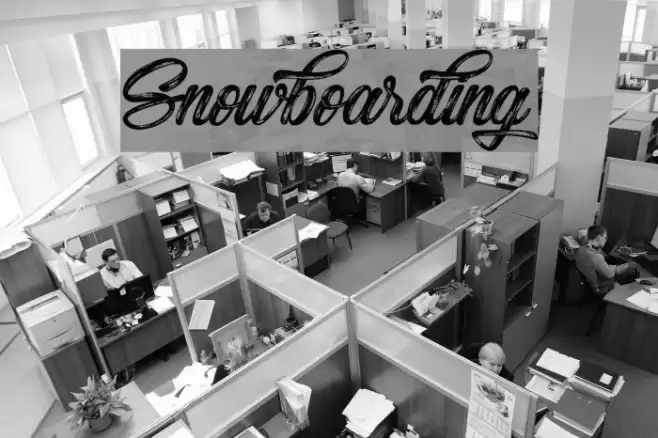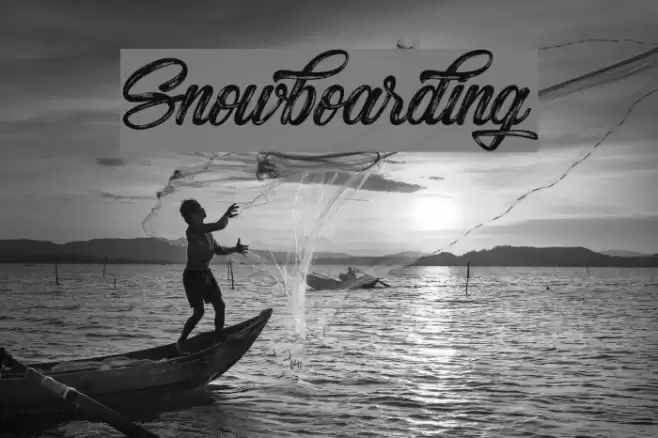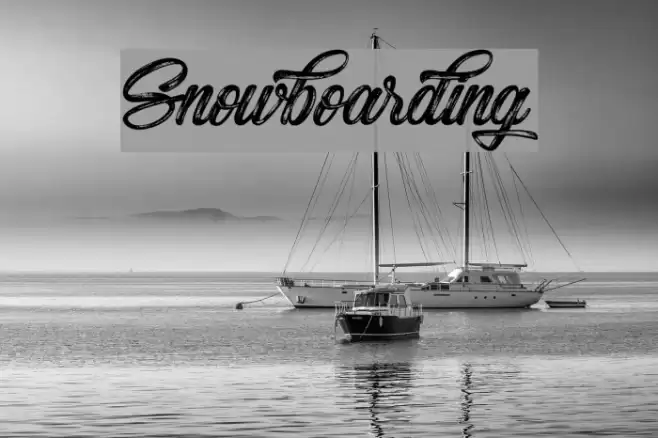
Snowboarding Font
Snowboarding Description
This font features a bold and dynamic script style, characterized by its flowing, cursive letterforms and high contrast between thick and thin strokes. The uppercase letters are particularly striking, with exaggerated flourishes and a sense of movement that suggests energy and creativity. The lowercase letters maintain this fluidity, offering a harmonious balance with the uppercase. Numbers and special characters are designed with the same attention to detail, ensuring consistency across all elements. The overall appearance is both elegant and assertive, making it suitable for projects that require a touch of sophistication and flair.
A bold, dynamic script font with high contrast and flowing cursive letterforms from Uncategorized fonts.
- Proposed Projects: Ideal for branding, invitations, logos, and any design that requires a touch of elegance and energy.
- Use Case: Logos, Invitations, Branding